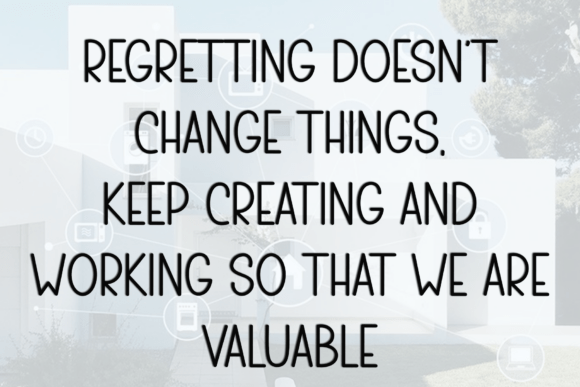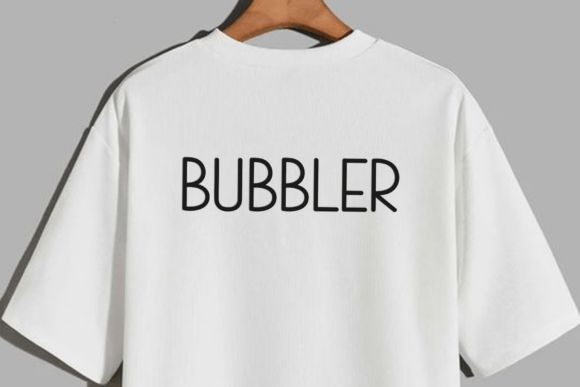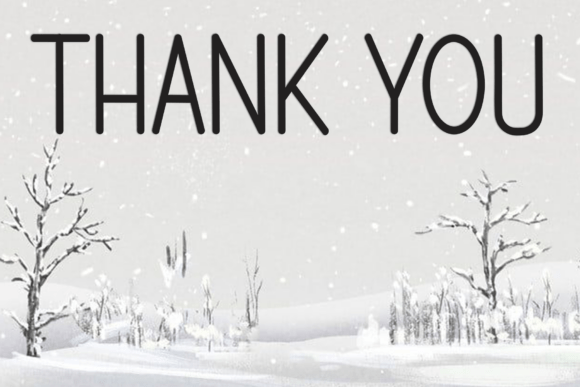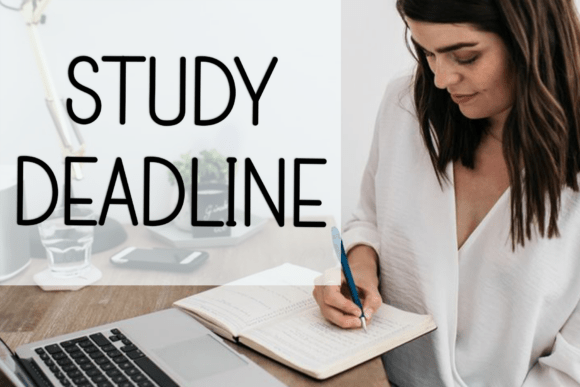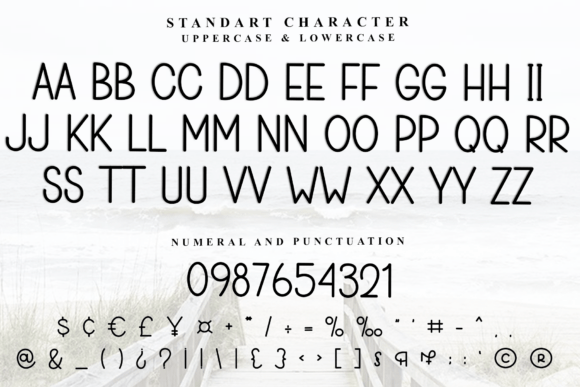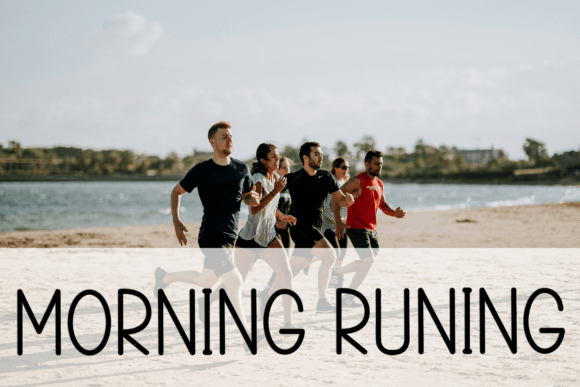
Discover the Unique Charm of Brokenz Font: Elevate Your Designs with Its Soft and Eye-Catching Appeal
In the world of typography, fonts play a crucial role in conveying messages, evoking emotions, and adding personality to designs. Among the myriad of fonts available, Brokenz stands out with its distinctive soft and unique touch. This beautiful font is designed to capture attention and inspire creativity, making it an excellent choice for designers, crafters, and artists looking to add a special character to their projects.
The Distinctive Features of Brokenz Font
Brokenz font is characterized by its soft, unique strokes that give it a special charm. Unlike traditional fonts, Brokenz offers a fresh and modern look that can instantly elevate the aesthetic appeal of any design. Its distinctive strokes are not just visually appealing but also add a layer of meaning and versatility, making it suitable for a wide range of applications.
Versatility and Compatibility
Ideal for Creative Projects
Brokenz font is particularly well-suited for creative projects that demand a unique and eye-catching typography. Designers can use it to create stunning visuals, while crafters can incorporate it into their handmade products, such as greeting cards, posters, and fabric designs. The font’s natural style and soft appeal make it an excellent choice for projects that aim to connect with a wide audience across different artistic and creative fields.
Enhance Your Designs with Brokenz
Incorporating Brokenz font into your designs can significantly enhance their appeal. Its unique character and soft strokes can add a touch of elegance and sophistication, making your work stand out in a crowded creative landscape. Whether you’re aiming to evoke a specific emotion, convey a particular message, or simply add some aesthetic value to your project, Brokenz font is an excellent choice.
Tips for Using Brokenz Font Effectively
Brokenz font is a beautiful and eye-catching addition to any design project. Its soft, unique touch and distinctive strokes make it a versatile and meaningful choice for designers, crafters, and artists. With its compatibility across various platforms and applications, Brokenz font is poised to become a go-to choice for creative professionals looking to add a special character to their work. Explore the possibilities of Brokenz font today and elevate your designs to new heights of creativity and appeal.
Whether you’re a seasoned designer or a crafting enthusiast, Brokenz font offers a world of possibilities for creative expression. Its unique charm and versatility make it an invaluable tool in your creative arsenal. So, dive in, experiment with Brokenz font, and discover how it can transform your designs into captivating works of art.